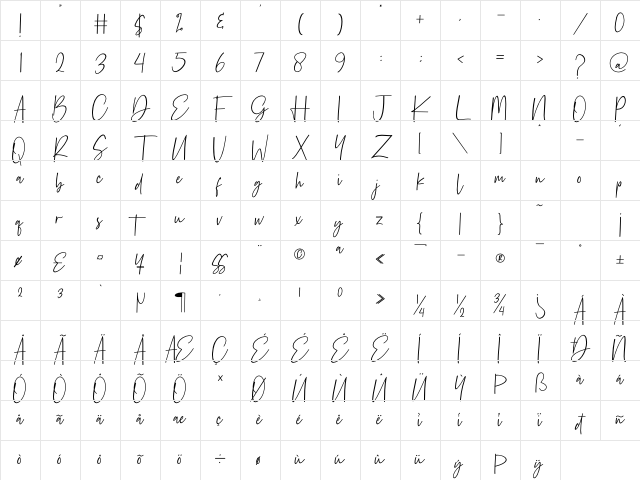
Reactin Regular Free Font
Reactin Regular
Design Context for Reactin
Reactin is a composed and adaptable typeface that performs quietly and consistently across a wide range of design contexts.